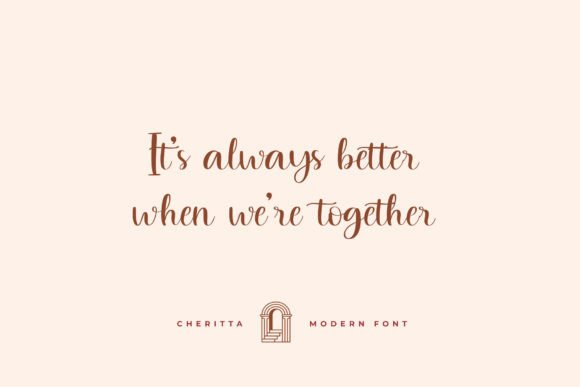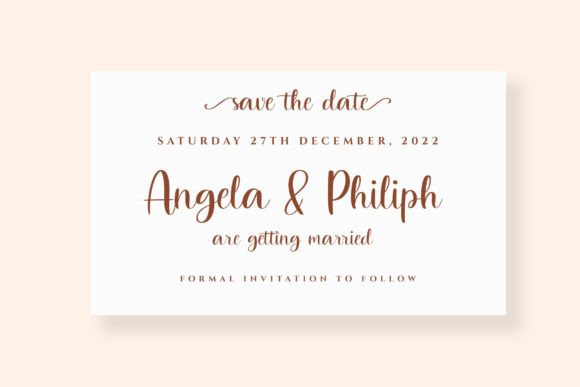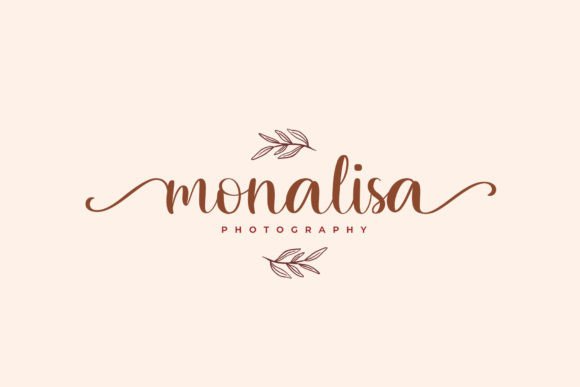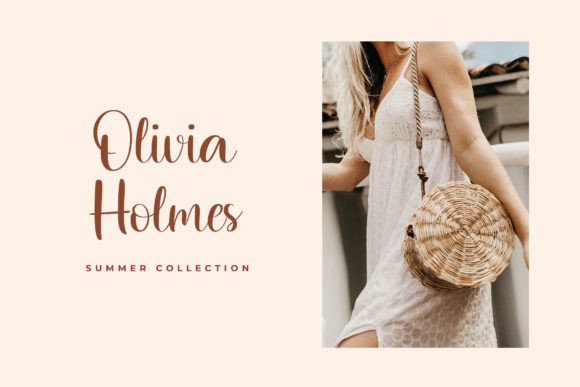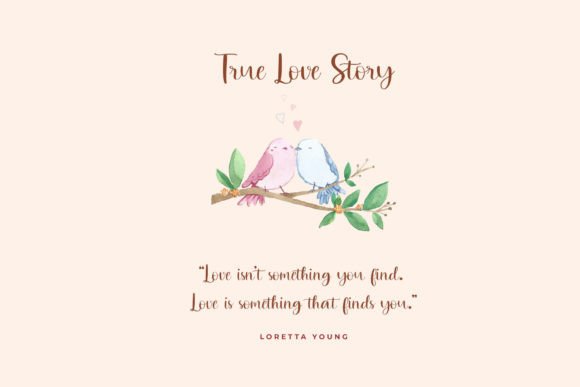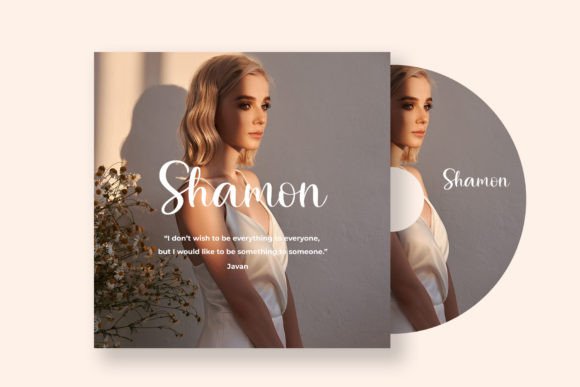
Introduction to Cheritta Font
Have you ever stumbled upon a font that sparks creativity and sets your design on fire? For many of us, that moment is a game-changer. As designers, we’re always on the lookout for high-quality fonts that elevate our work and make it truly special. That’s exactly what the Cheritta Font does – it brings a touch of elegance and sophistication to any design project.
Whether you’re working on a creative project, designing a logo, or creating a beautiful watermark, the Cheritta Font is an excellent choice. Its modern, feminine design makes it perfect for a variety of applications, from weddings to album covers. And the best part? It’s free to download, making it an accessible design resource for anyone.
What sets the Cheritta Font apart is its versatility and high-quality design. With a transparent background option, you can easily use it for watermarks, quotes, or even signatures. As a valuable design resource, the Cheritta Font is here to take your work or business to the next level.
Key Features of Cheritta Font
- High-quality, unique design perfect for creative projects and personal use, available for free download.
- Transparent background, making it ideal for overlaying on images or videos in your design work.
- Font size: 1,000 glyphs, covering a wide range of languages and characters.
- High-resolution font, suitable for printing at 300 DPI or higher.
- Unique characteristics include its elegant and modern style, making it perfect for branding, logos, and creative projects.
Honest Review: Cheritta Font
As a designer, I’m always on the lookout for high-quality fonts to elevate my creative projects. The Cheritta Font caught my attention, and I decided to give it a try. Here’s my honest review.
- ✨ The Cheritta Font has a unique, elegant design that’s perfect for adding a touch of sophistication to any project.
- ✨ The transparent background option is a bonus, allowing for easy layering and customization.
- ⚠️ The font is a bit on the heavier side, which may not be ideal for large blocks of text.
- ⚠️ The character set is limited, which may not be suitable for projects that require a wide range of characters.
Overall, I’m impressed with the Cheritta Font. While it has some limitations, its unique design and free availability make it a great resource for designers working on creative projects. If you’re looking for a high-quality font to add some flair to your designs, the Cheritta Font is definitely worth checking out.
Tips for Getting the Most Out of Cheritta Font
Use the Cheritta Font with a transparent background to create visually appealing designs. Experiment with different font sizes, colors, and styles to add creativity to your project. This high-quality font is perfect for various design projects, including business cards, brochures, and social media graphics.
The Cheritta Font is ideal for creative projects, including branding, advertising, and editorial design. Its unique style and high-quality design make it a popular choice among designers and artists. Use the Cheritta Font to add a touch of elegance and sophistication to your designs.